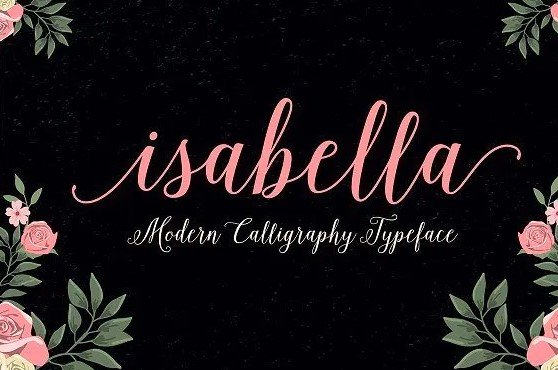
I’m excited to share with you the stunning and widely admired curly and calligraphic style, Isabella Script Font. This typeface offers a scripted flair and is perfect for creating high-quality, high-definition graphic illusion images.
The font has great popularity on the major graphics and fonts market. There are lots of users are available who use this font and takes the benefits of all the features that this font provided.
The typeface was shared by Creative LAB who designed and provided us for use in all kinds of graphic as well web projects. You can also view the preview in the image to get an idea about its glyphs.
View Of Isabella Script Font
Here we provide an image which includes the characters and letters of this beautiful, you can perceives it by viewing on the image and get an idea how delightful it is.
Isabella Font View
This unque and elegant font that looks like brusher font which has a popular texture so that can also be used in pairing also. That’s why each designer treated it as a really perfect font in all appreciate.
• Retail store interiors
• Images for websites and blogs
• Menus
• Banners
• Office branding
• Infographics
Designer Creative LAB